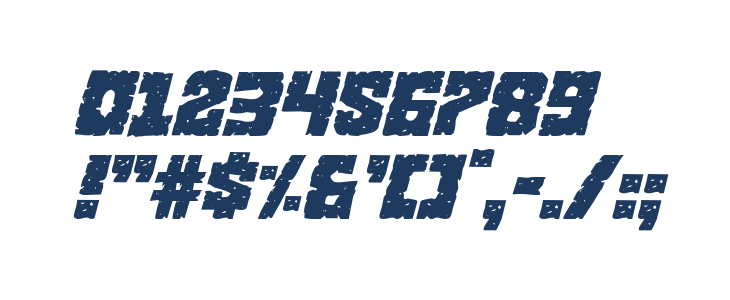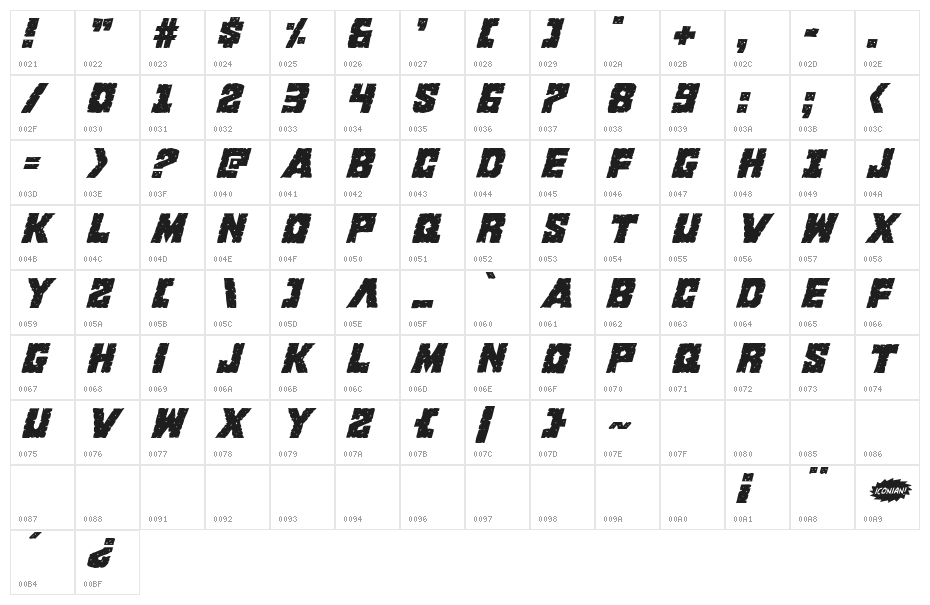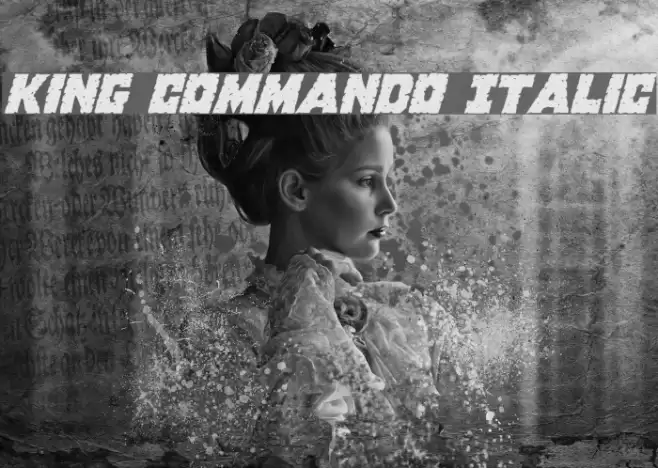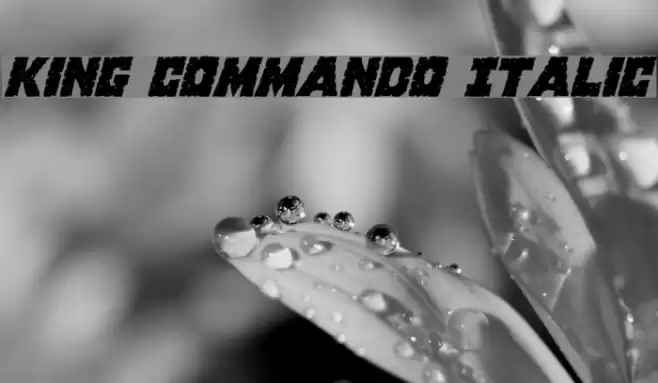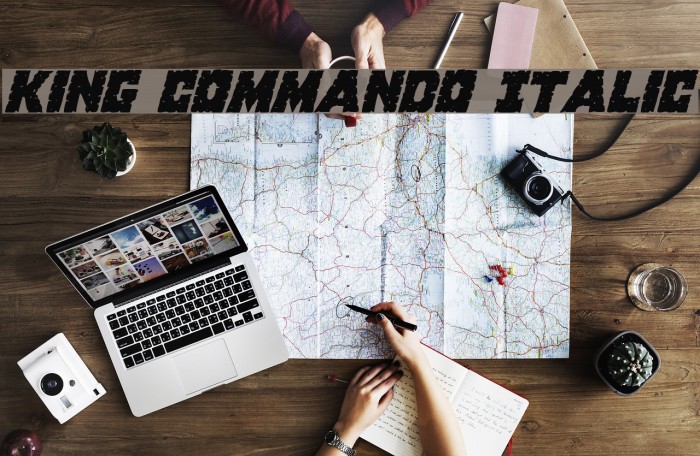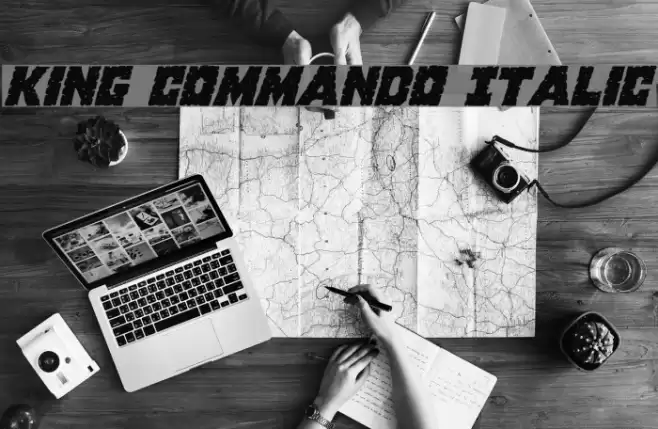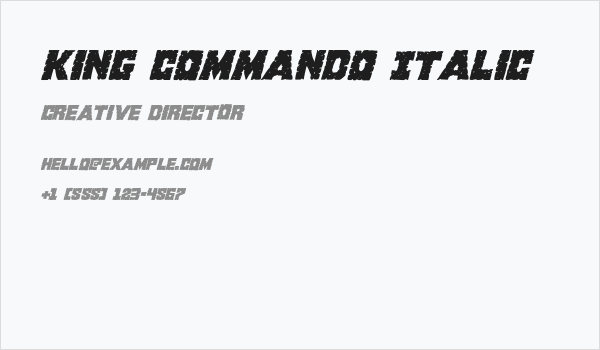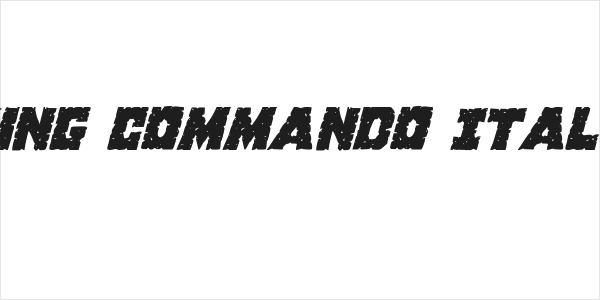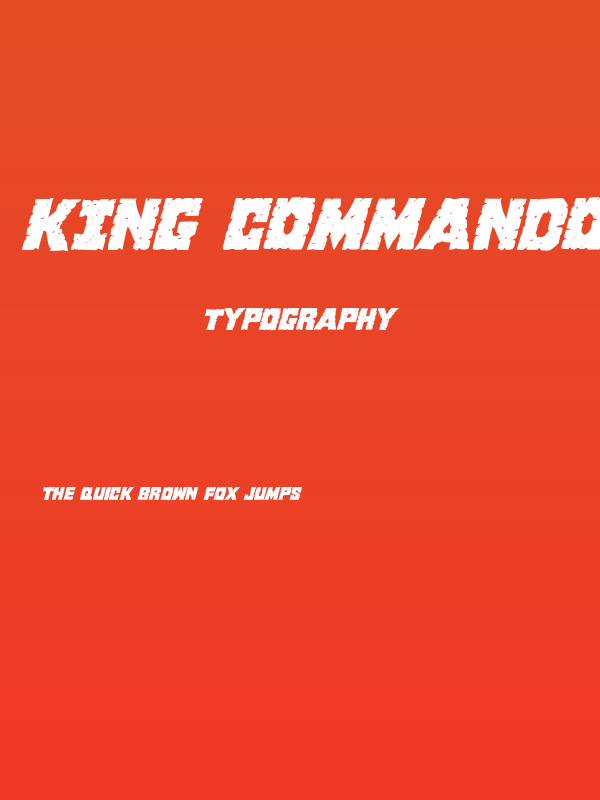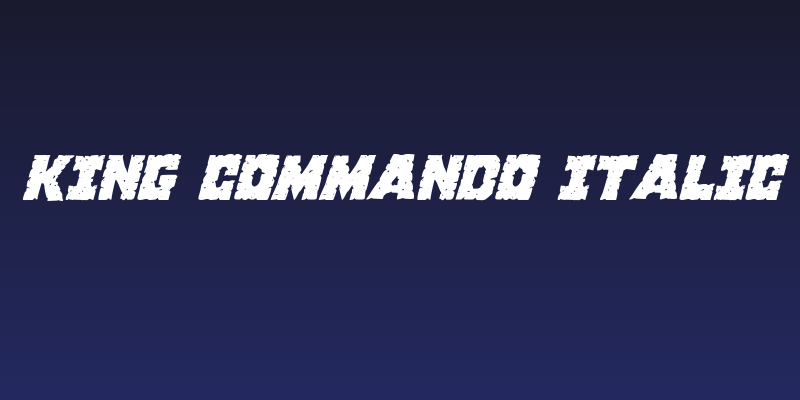
King Commando Italic Font
King Commando Italic Description
This font features a bold, rugged design with a distressed texture that gives it a gritty, military-inspired appearance. The italicized letters add a dynamic and forward-leaning stance, enhancing its aggressive and commanding presence. The uppercase and lowercase letters maintain a consistent style, with sharp angles and a blocky structure. Numbers and special characters follow the same aesthetic, ensuring uniformity across all glyphs. The font's unique texture and bold weight make it stand out, suitable for projects that require a strong, impactful visual statement.
| Proposed Projects | Ideal for military-themed posters, video game titles, action movie graphics, and branding that requires a strong, bold statement. |